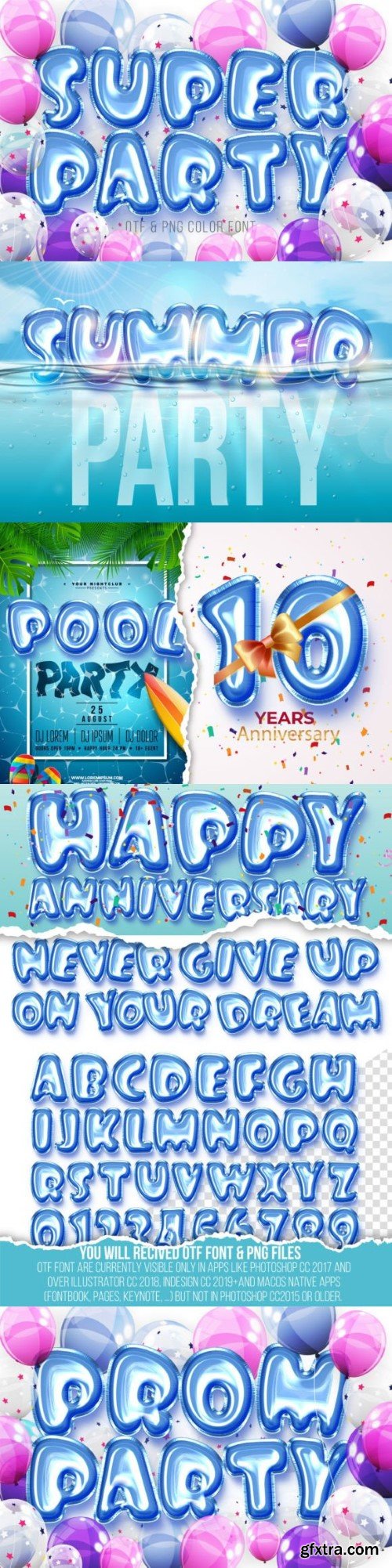
Super Party Font
Super Party is cute, lovely, modern and friendly color font, and high quality of PNG alphabet files. It embodies playfulness and is the perfect choice for any activity, and pretty much anything that requires a jol touch.